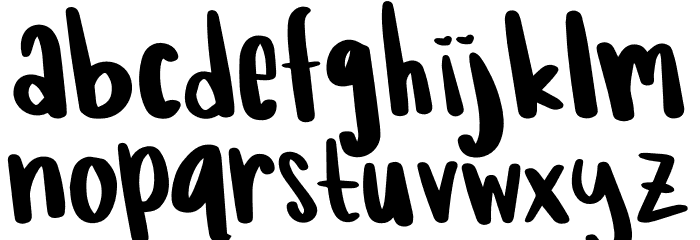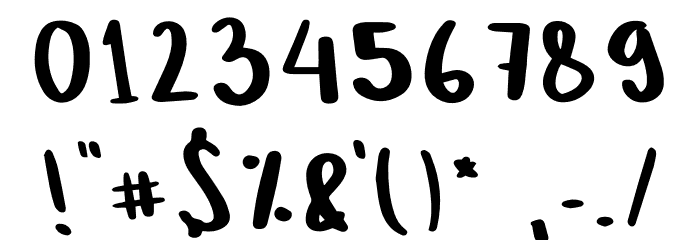
Lumierre Bear Font
This playful and bold handwritten font features a lively and casual style, characterized by its thick strokes and slightly irregular shapes. The uppercase and lowercase letters maintain a consistent weight, creating a cohesive look. The numbers and special characters follow the same playful aesthetic, making the font versatile for various creative projects. Its informal and friendly appearance makes it ideal for designs that aim to convey warmth and approachability.
A bold, playful handwritten font with a casual and friendly style.
- Proposed Projects: Perfect for children's books, greeting cards, playful branding, and social media graphics.
- Overall Style: Playful